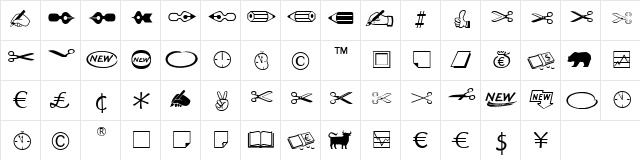
ZapfEssentials LT Office Regular
| Designer | Hermann Zapf |
Design Context for ZapfEssentials LT Office Typeface
ZapfEssentials LT Office takes a measured approach to typography — its balanced proportions and neutral character make it a reliable workhorse for both digital and print work. Its slender proportions lend an understated elegance to any composition.